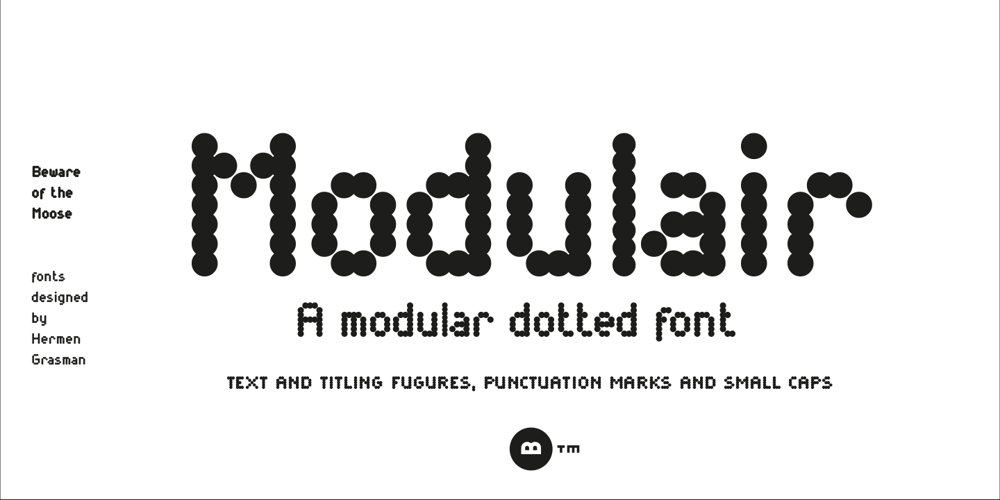
Modulair
Modulair font
Modulair Font Family was designed by Hermen Grasman and published by Beware of the moose. Modulair contains 12 styles and family package options. Modulair is a dot matrix based font with nice typographic features. Various figures, complete punctuation and small caps in three weights makes the Modulair very useful for fine typographic use.